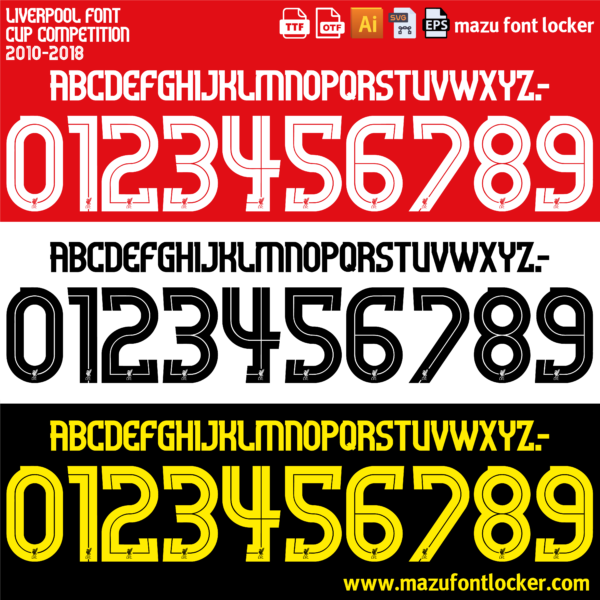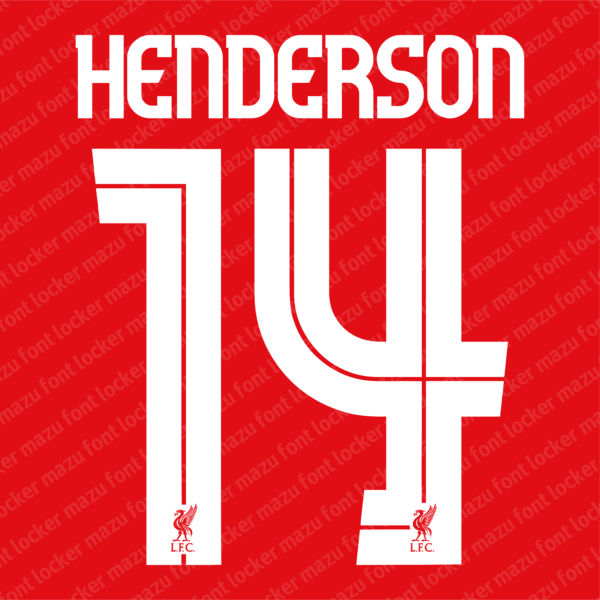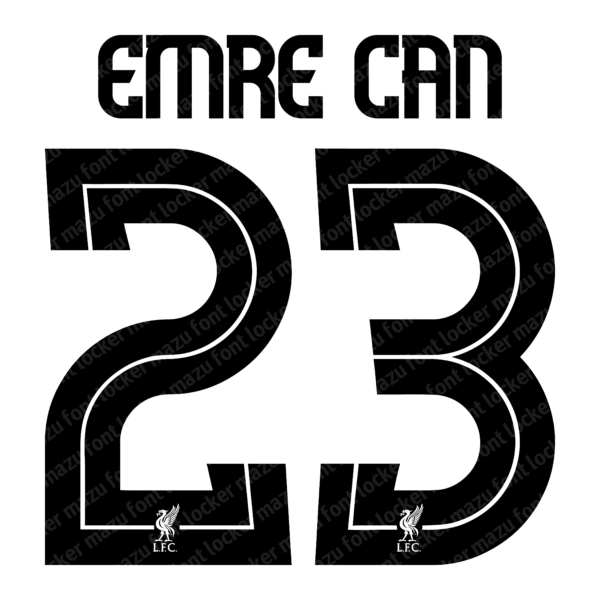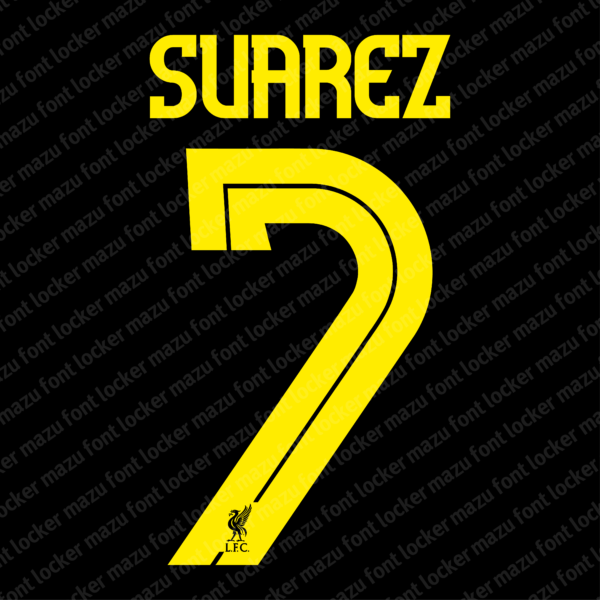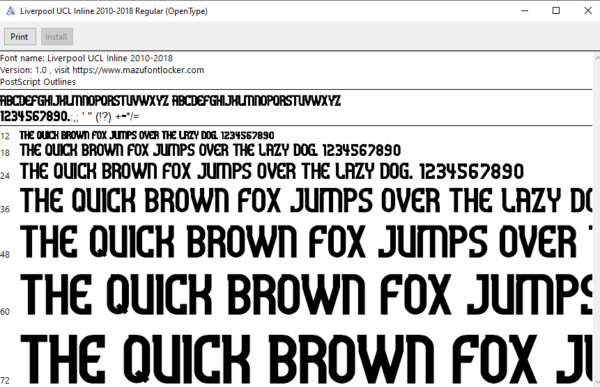
Liverpool 2010-2018 Font Vector – Legendary Steven Gerrard Era
Liverpool 2010-2018 Font Vector – Authentic Reds Typeface
The Liverpool 2010-2018 Font is a premium typeface that accurately recreates the official match lettering worn by Liverpool FC during the iconic 2010-2018 era. This high-quality font kit captures the bold, classic, and commanding typography that represents one of the most passionate periods in the club’s modern history.
Designed for professional designers and passionate Liverpool fans, the Liverpool 2010-2018 Font delivers perfect authenticity for creating retro jersey mockups, fan merchandise, matchday posters, social media graphics, and much more. It blends beautifully with the team’s iconic red and white colors.
Why Choose Liverpool 2010-2018 Font
This font stands out because of its sharp details and strong historical identity. Every letter and number is crafted to match the exact style used on the players’ shirts throughout the 2010-2018 era. Whether you are making realistic retro shirt templates or nostalgic football content, the Liverpool 2010-2018 Font gives your designs that authentic Reds look.
The letterforms in the Liverpool 2010-2018 Font are tall, bold, and highly readable. The strokes have a strong and controlled weight that looks powerful on the back of jerseys while maintaining excellent clarity and elegance.
The numerals use bold curves and firm edges, giving them a confident and premium appearance. This design ensures great legibility whether used in large print formats, digital mockups, or video content.
- Full uppercase A–Z and numbers 0–9 in authentic Liverpool 2010-2018 style
- Special Liverpool FC crest glyph for accurate shirt number detailing
- Multilingual Latin character support including diacritics
- Create highly realistic Liverpool 2010-2018 jersey mockups with accurate lettering
- Design stunning retro matchday posters, score graphics, and squad announcements
- Produce custom Reds merchandise with a classic football aesthetic
- Includes the exact crest glyph placement used under player numbers
Liverpool 2010-2018 Era